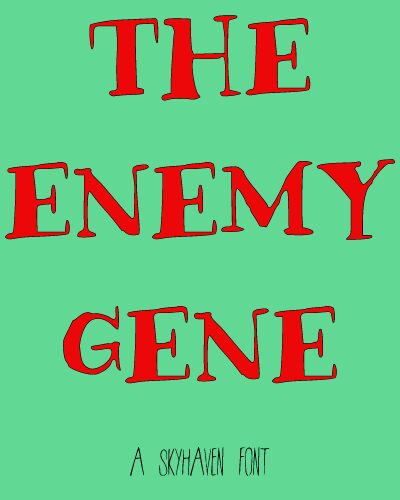
The Enemy Gene is a free comic display font with tall, unruly capitals and the tense exaggeration of hand-inked horror lettering. Thick and thin strokes shift abruptly, and pointed serifs give the words a scratchy silhouette. Several forms lean or swell in unexpected places.
Comic book covers are its clearest setting, since the uneven contours resemble expressive title art rather than formal type. The same nervous drawing suits monster posters, punk merchandise, and game graphics built around mutants or strange science. In those settings, the lettering can become part of a creature emblem or laboratory sign instead of serving as neutral text.